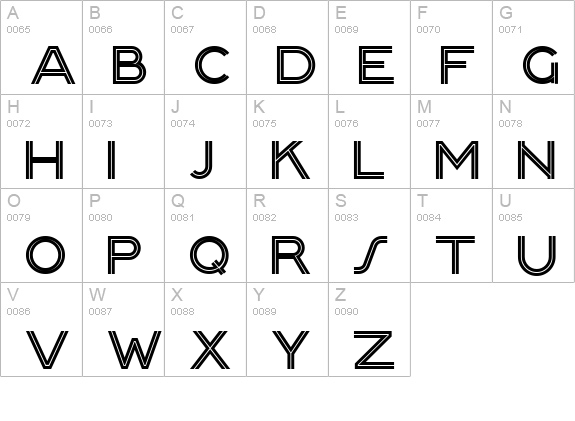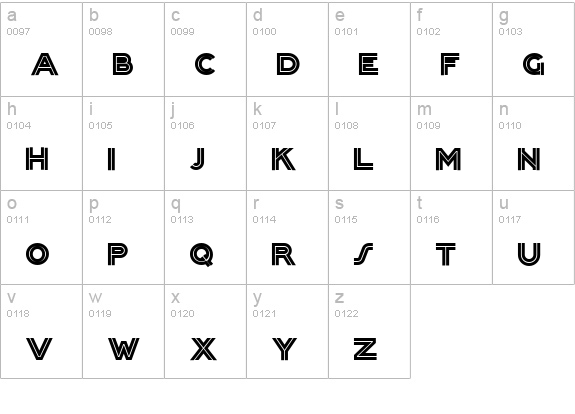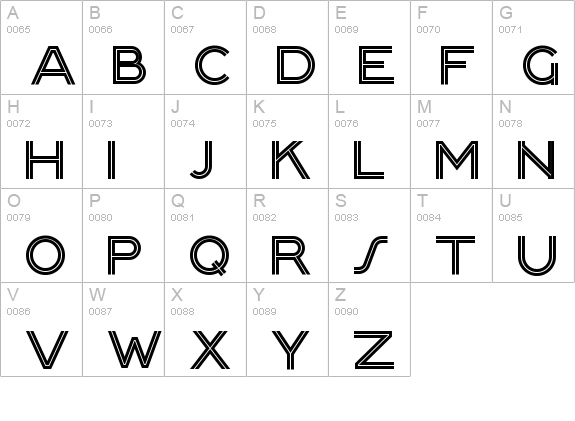
Packard Clipper NF Font Details
Packard Clipper NF font is a stylish and elegant typeface that exudes sophistication and class. With its clean lines and classic design, this font is perfect for a wide range of projects, from branding to editorial design. What sets Packard Clipper NF font apart is that it is completely free to download. You can easily access this exquisite font at FontsMarket.com, where you can enhance your designs without any cost. Let Packard Clipper NF font elevate your projects and make a lasting impression on your audience with its timeless appeal.